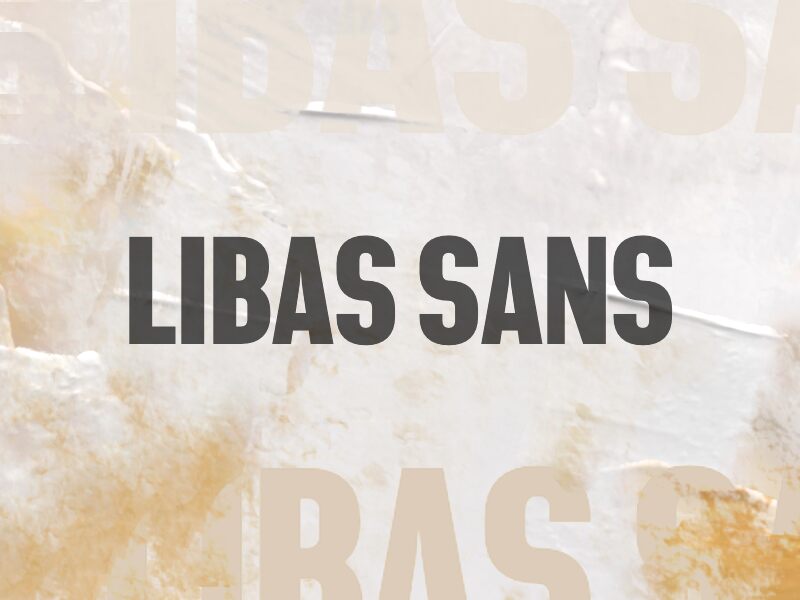
LIBAS SANS
Libas Sans font by wepfont.com is a free sans serif typeface that tackles one of the trickiest layout issues: getting big, bold impact into tight spaces. Its letters are wide-shouldered yet efficiently spaced, with flat edges and solid strokes that lock together like bricks, creating a dense, confident texture. The overall feel is sturdy and unapologetic—perfect when you need your words to hit hard at a glance without feeling cluttered.
Using Libas Sans, headlines and titles snap into place on posters, thumbnails, banners, landing pages, packaging, and bold social graphics. This free font shines when set large, where its chunky forms and clean cuts stay legible even from a distance or on small screens. Pair it with a light, open sans serif for body text to balance its visual weight and keep your layouts feeling strong but not overwhelming.